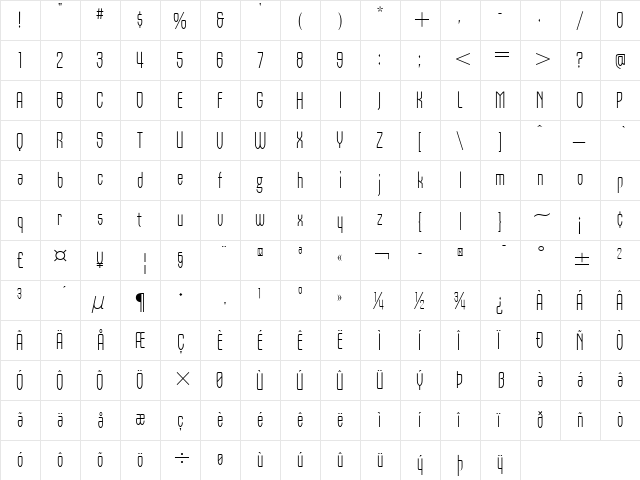
Orbon ITC Light
| Foundry | as an unpublished work by Galapagos Design Group, Inc |
Design Context for Orbon ITC Typeface
Orbon ITC takes a measured approach to typography — its balanced proportions and neutral character make it a reliable workhorse for both digital and print work. The delicate stroke weight brings airiness and refinement to layouts.